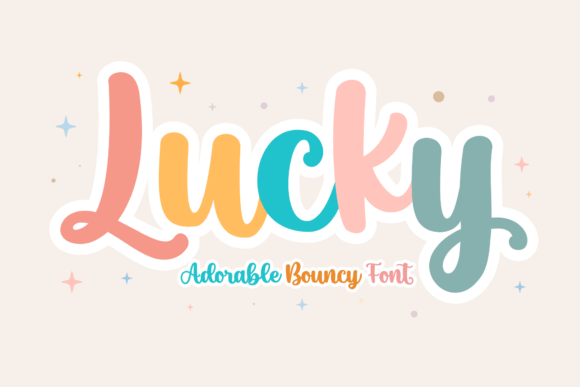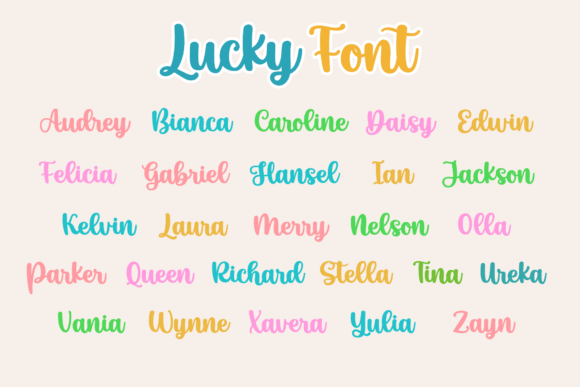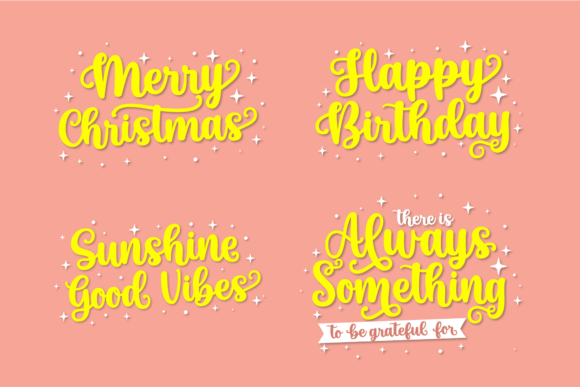
Lucky Font
Lucky is a sweet and cute handwritten font. Fall in love with its incredibly versatile style and use it to create gorgeous wedding invitations, beautiful stationary art, eye-catching social media posts, and much more! This font is PUA encoded which means you can access all the glyphs and ligatures with ease!